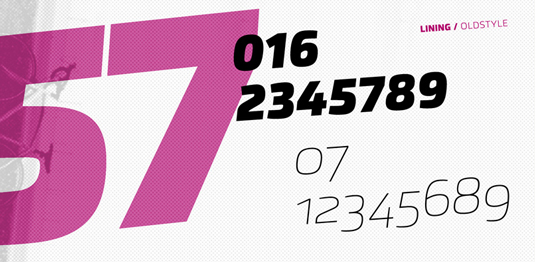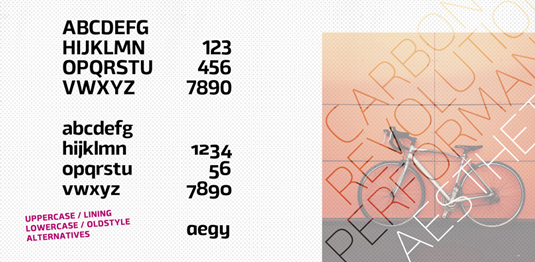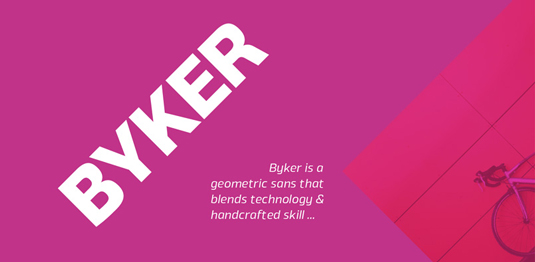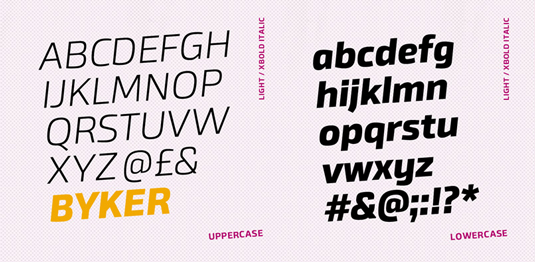
Font of the day: Byker
Every day we showcase the best fonts on the web. Today it's Byker from The Northern Block.
Byker from The Northern Block
Today's typeface of choice is geometric, sans serif Byker, created by the team at font foundry The Northern Block. Available from HypeForType, Byker is described having "letterforms constructed digitally from a technical grid and overlaid with handmade curves. The combination of this process creates a strong, organic font that is precise with subtle movement and personality without being too clinical."